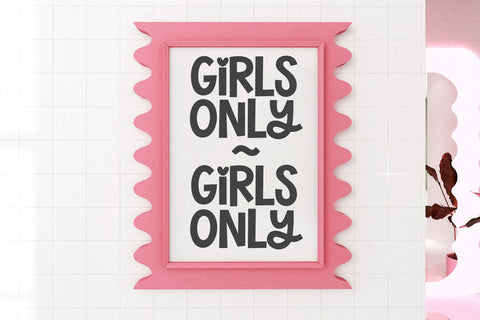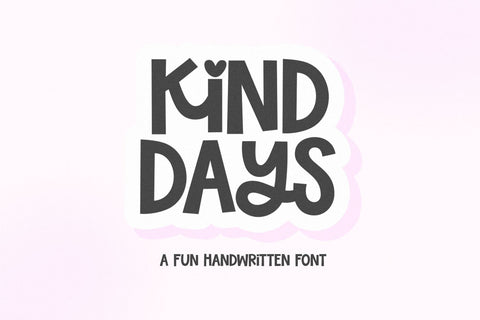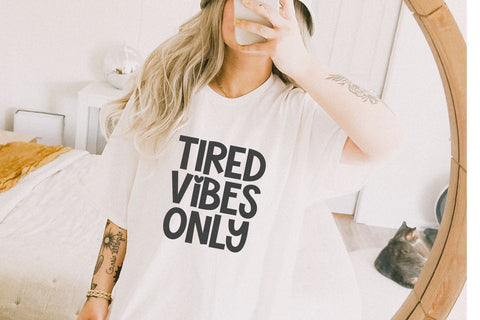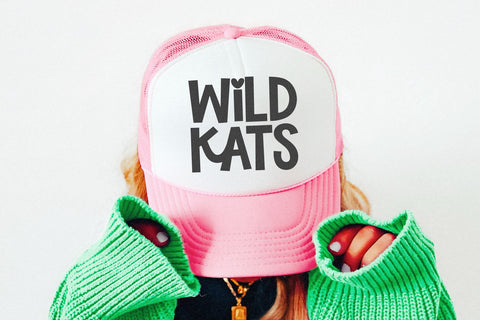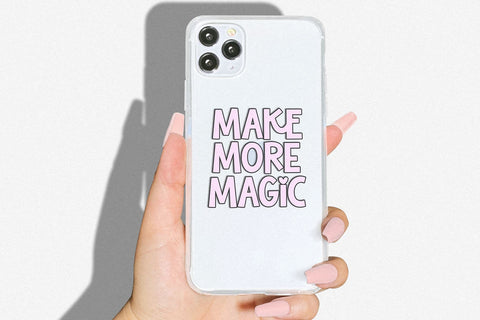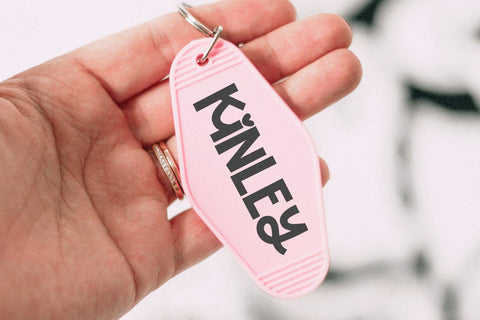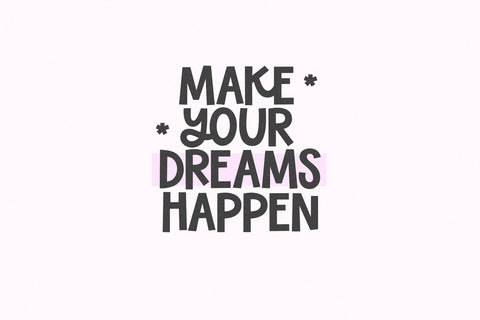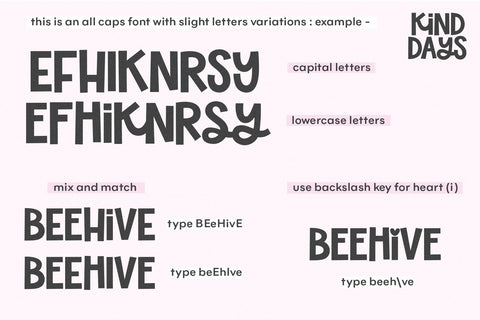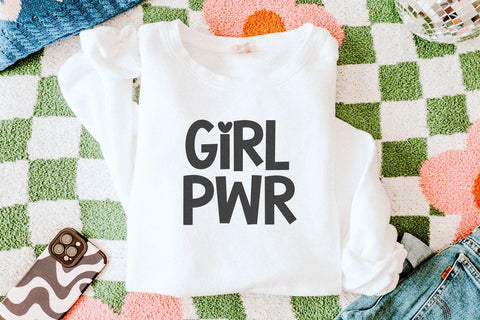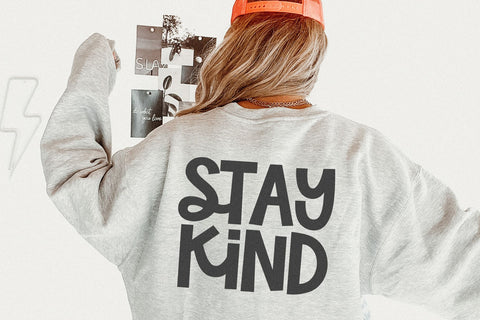
Kind Days - Fun Handwritten Font
Kind Days is a fun handwritten font!
This font is perfect for logos, shirts, svg designs, canva, cricut projects, teachers, stickers, quotes and more!